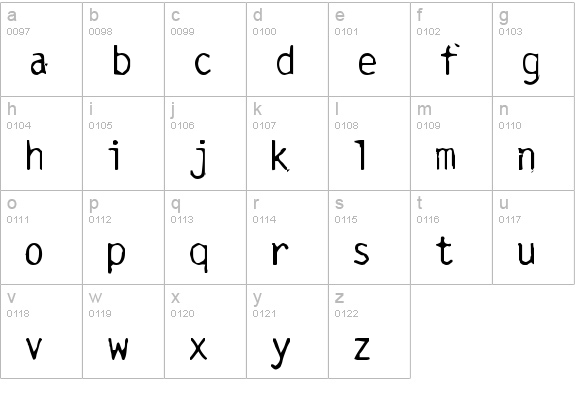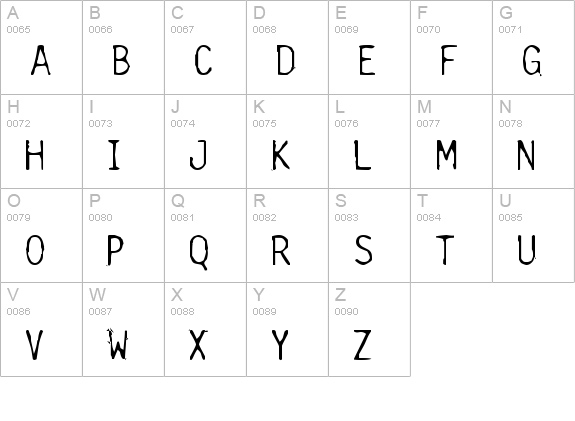
Prova Font Details
Prova font is a stunning typeface that exudes elegance and sophistication. Its sleek lines and modern design make it perfect for a wide range of design projects, from branding to editorial design. With its clean and minimalist aesthetic, Prova font is versatile and can be used across various platforms. What makes Prova font even more appealing is that it is available for free download at FontsMarket.com. This means that you can easily access this beautiful font and use it in your projects without any cost. Whether you are a designer looking for a new typeface to add to your collection or a business owner in need of a fresh look for your brand, Prova font is the perfect choice. Download it today and elevate your designs with this stylish and sophisticated font.